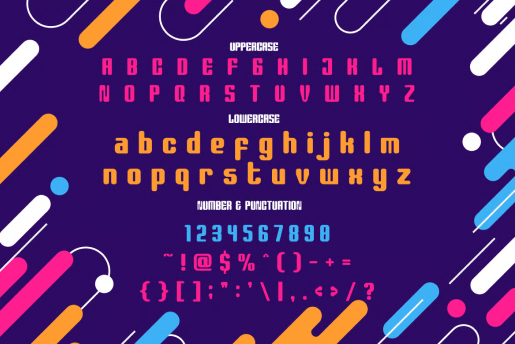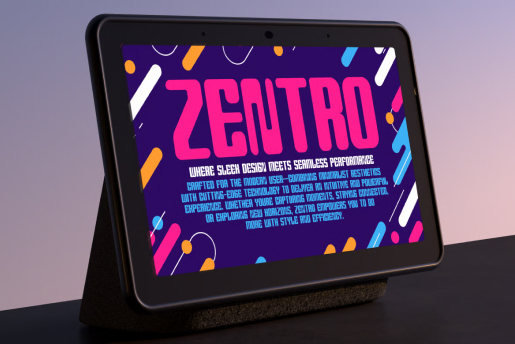
Mikado Bold - Rounded Fun Bold Font
Mikado Bold is a vibrant, rounded display font full of energy and playful charm. With thick strokes, smooth curves, and a bold geometric structure, it’s perfect for designs that need to stand out—especially in kids’ content, tech branding, or pop culture visuals. Its friendly style and strong presence make it ideal for everything from logos to posters. Bring your designs to life with a font that’s both fun and fearless.